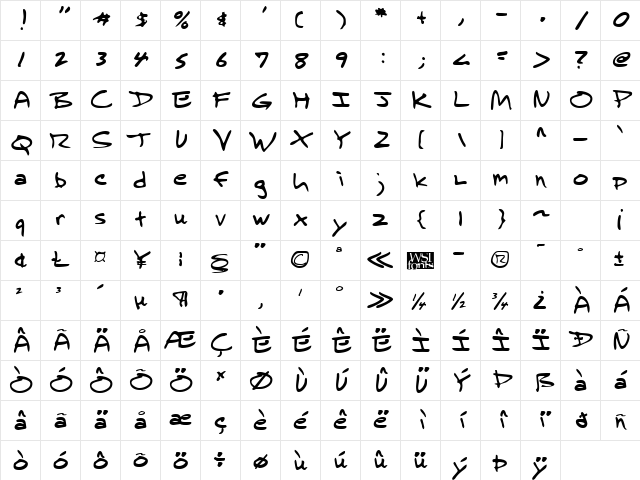
RalphsHand Regular Free Font
RalphsHand Regular
RalphsHand Family
RalphsHand Regular
Design Context for RalphsHand
RalphsHand flows with the natural rhythm of handwritten lettering, making it ideal for designs that call for warmth and personal expression.
Font Pairing: Combine RalphsHand with a simple geometric sans for maximum contrast - the tension between flowing curves and clean structure is a classic typographic pairing.
Pro Tip: Use RalphsHand for short runs of text - names, titles, or taglines. Extended body copy in script faces tires the eye quickly.